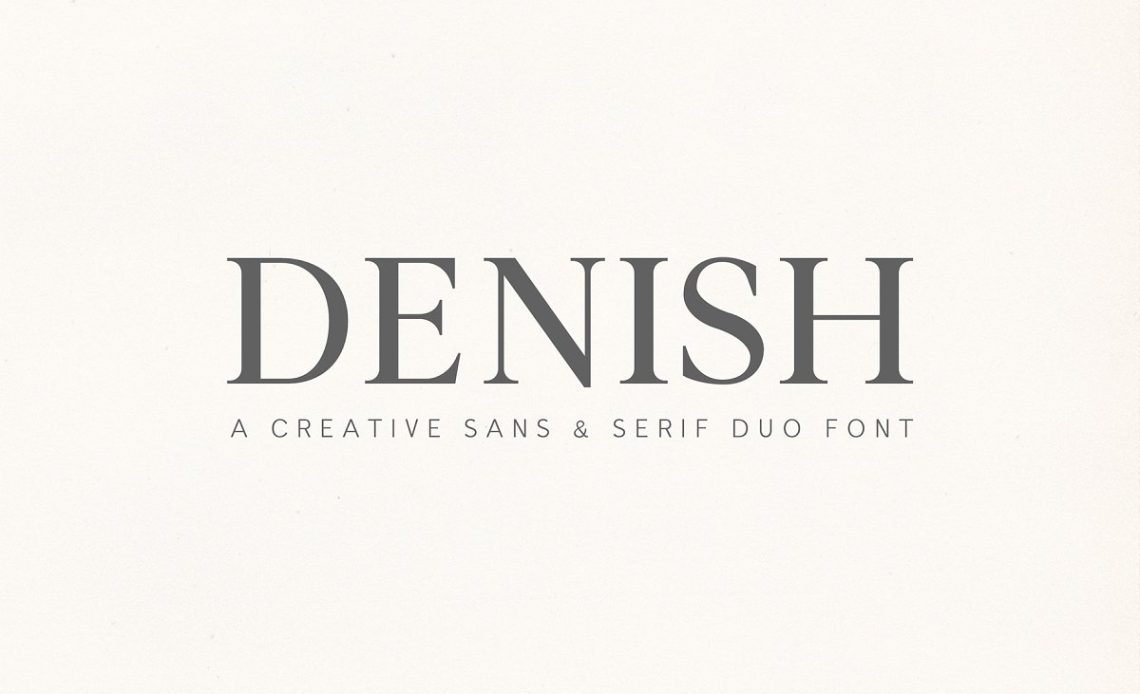
Introducing the Denish Sans & Serif Duo Font Family, a stunning and elegant pair of fonts that will breathe life into your design projects. Created by the talented team at Creative Tacos, this font duo is the ultimate choice for anyone looking to add a touch of sophistication and innovation to their work.
With its complete set of uppercase and lowercase letters, numbers, punctuation, symbols, and non-English characters, Denish is a versatile font that can be used for various purposes. Whether you're working on posters, greeting cards, stationery design, magazine layouts, stickers and stencils, prints, logotypes, branding, name cards, or blog headers, Denish has got you covered.
But it doesn't stop there! Denish is also perfect for typography enthusiasts who want to create eye-catching headlines, packaging designs, presentations, titles, and magazine headings. Its sleek and elegant appearance will captivate your audience and leave a lasting impression.
The Denish Sans & Serif Duo Font Family offers a wide range of features to enhance your creative designs. With five font weights to choose from - Regular, Light, Thin, Medium, and Bold - you have the freedom to experiment and find the perfect fit for your project.
But wait, there's more! Alongside Denish, you also get the Aarielle font, which shares the same multilingual support as Denish. This means you can explore even more possibilities and create stunning designs in multiple languages.
From Latin Supplement to Latin Extended A characters, Denish and Aarielle have you covered. Whether you need to showcase English, French, German, Spanish, or any other language, these fonts are ready to impress.